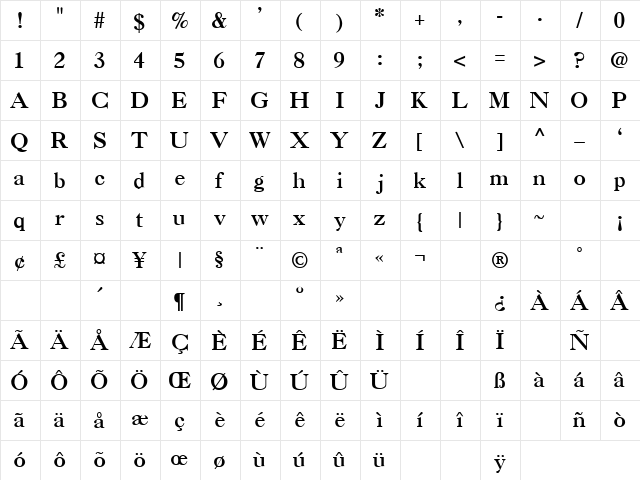
Get The Lead Out 1 Regular
Get The Lead Out 1 takes a measured approach to typography — its balanced proportions and neutral character make it a reliable workhorse for both digital and print work.